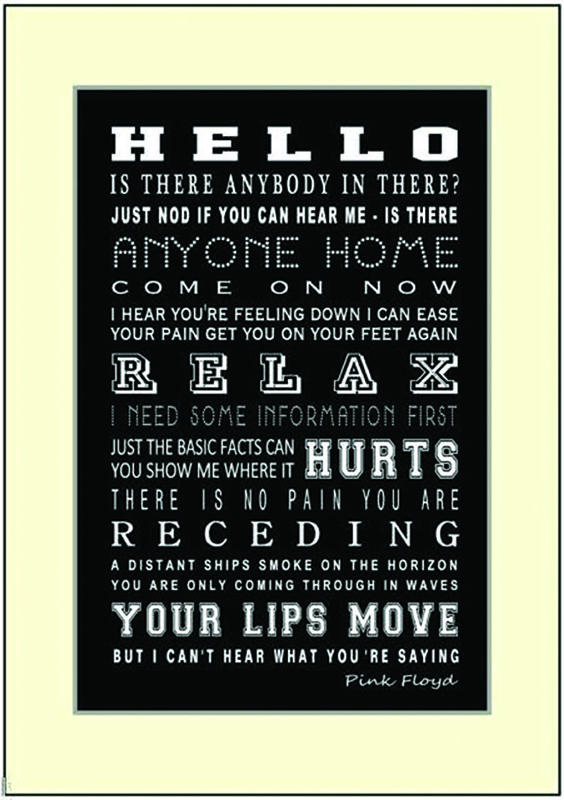
Asked to try to replicate this for print, need help with fonts please
For some god awful reason someone wants a print done up of this, and I'm having trouble identifying all the fonts here. It looks as though someone downloaded a collection of fonts and wanted to try them all out at the same time, because design. If anyone could help, I would truly appreciate it.